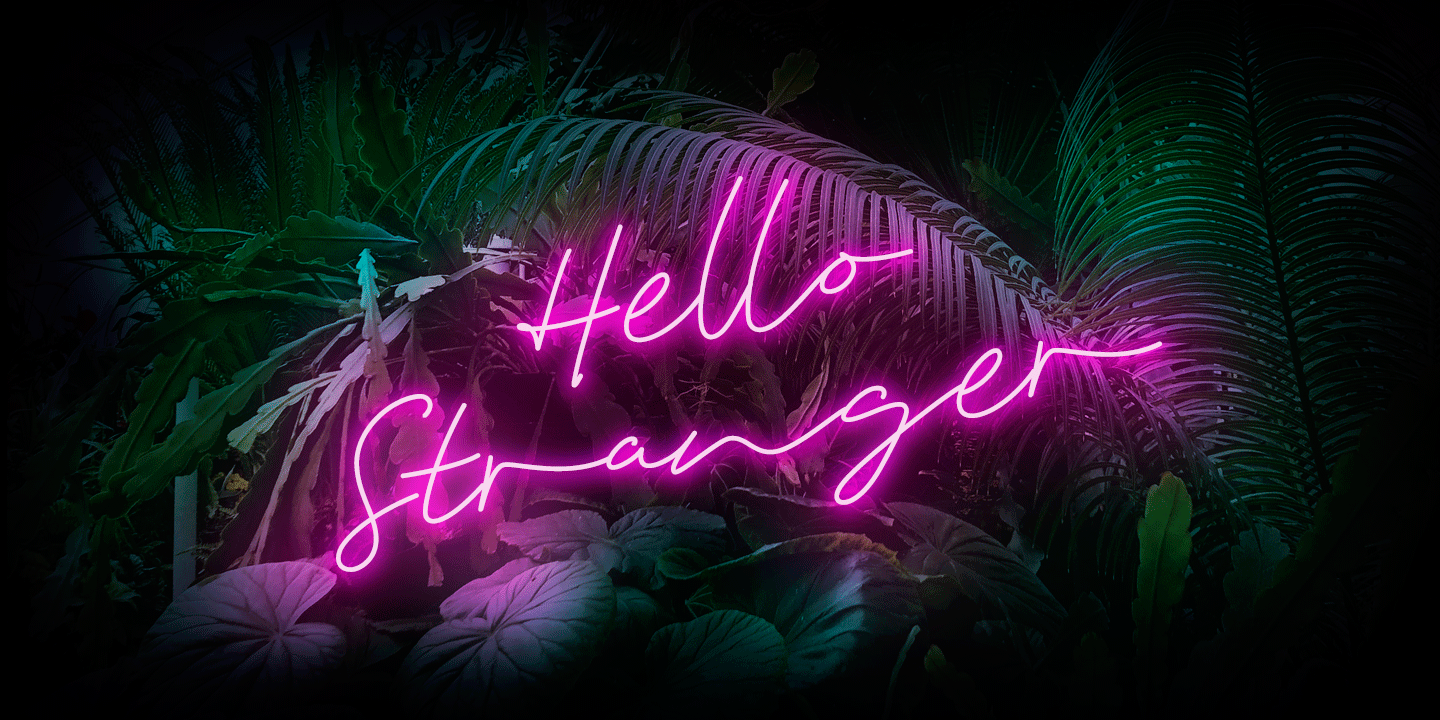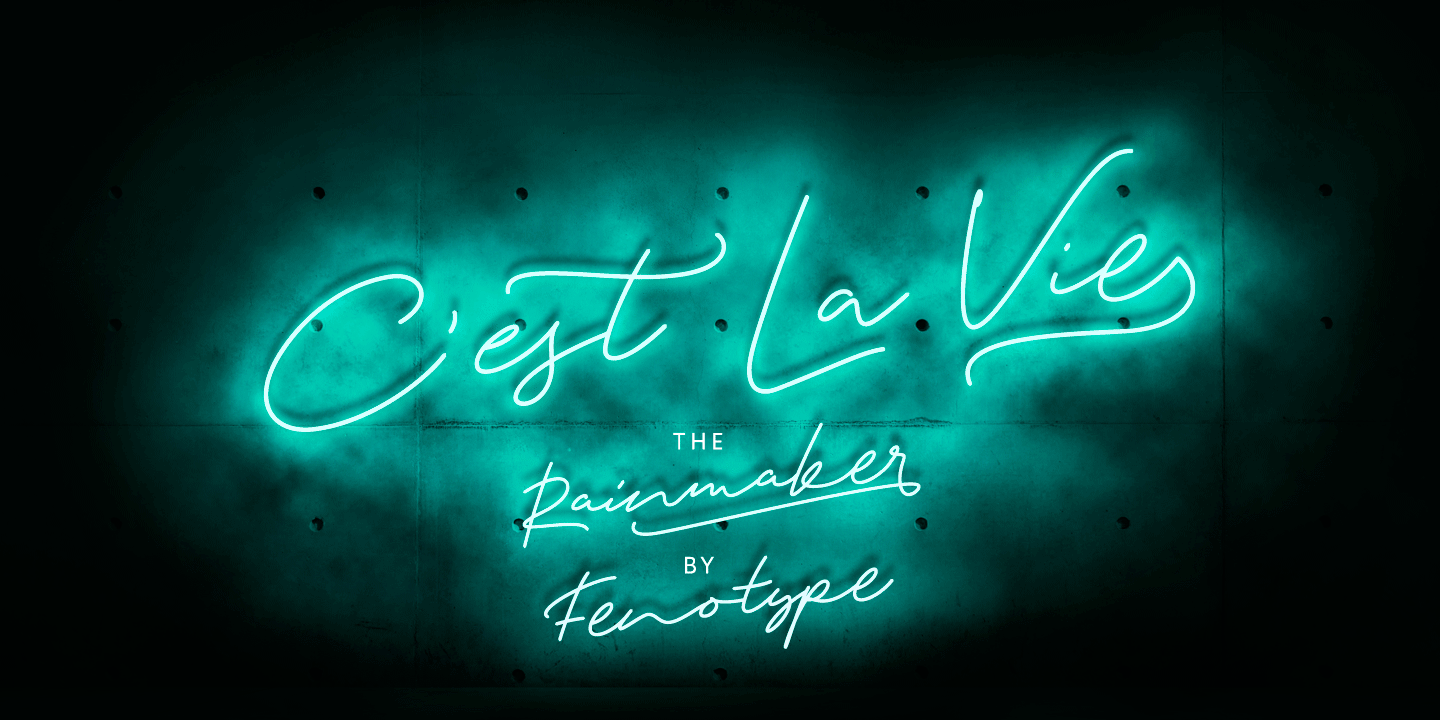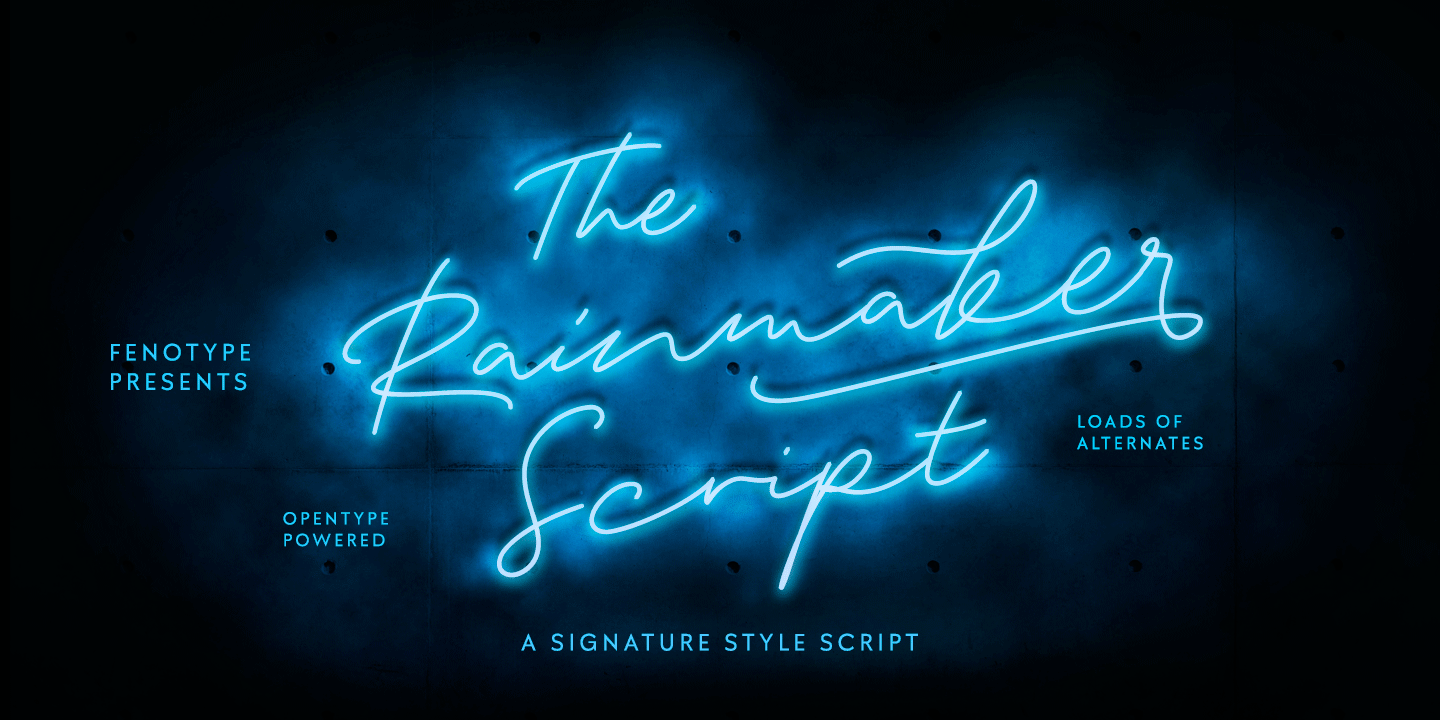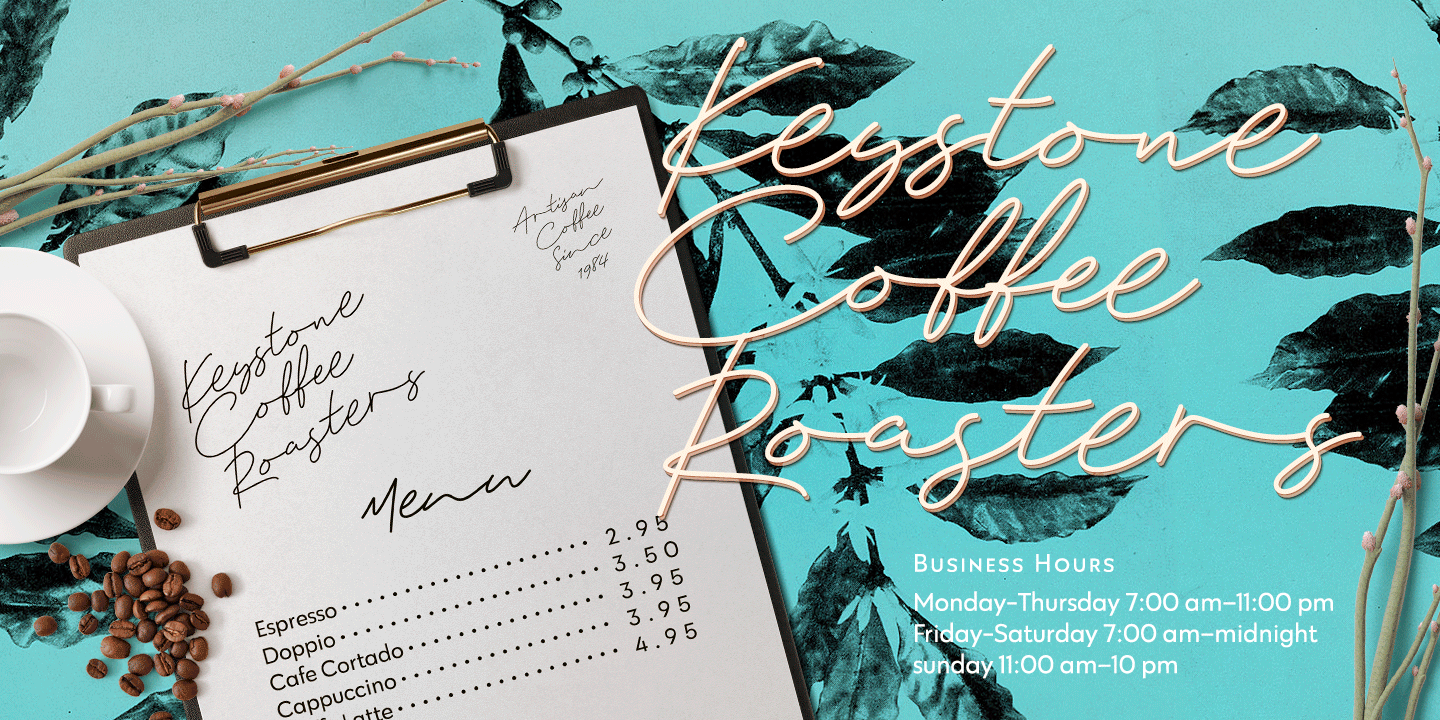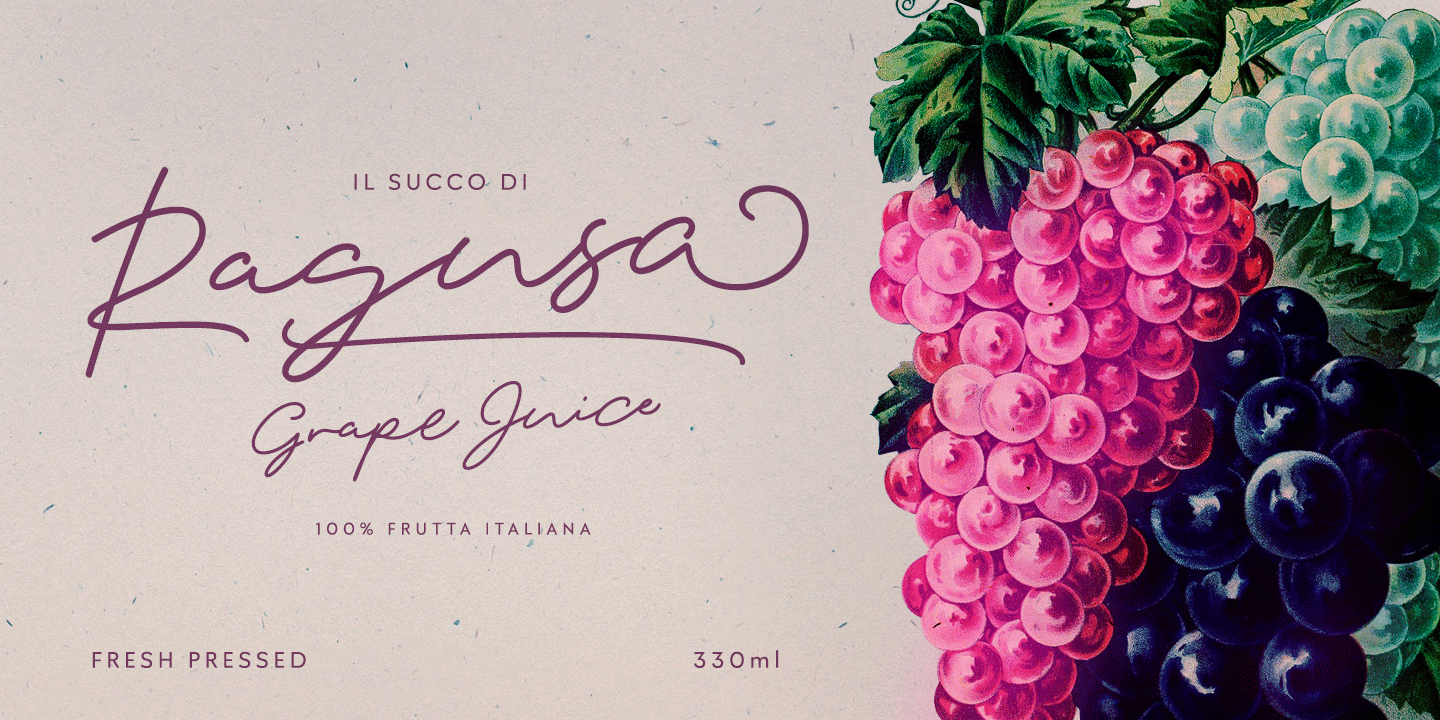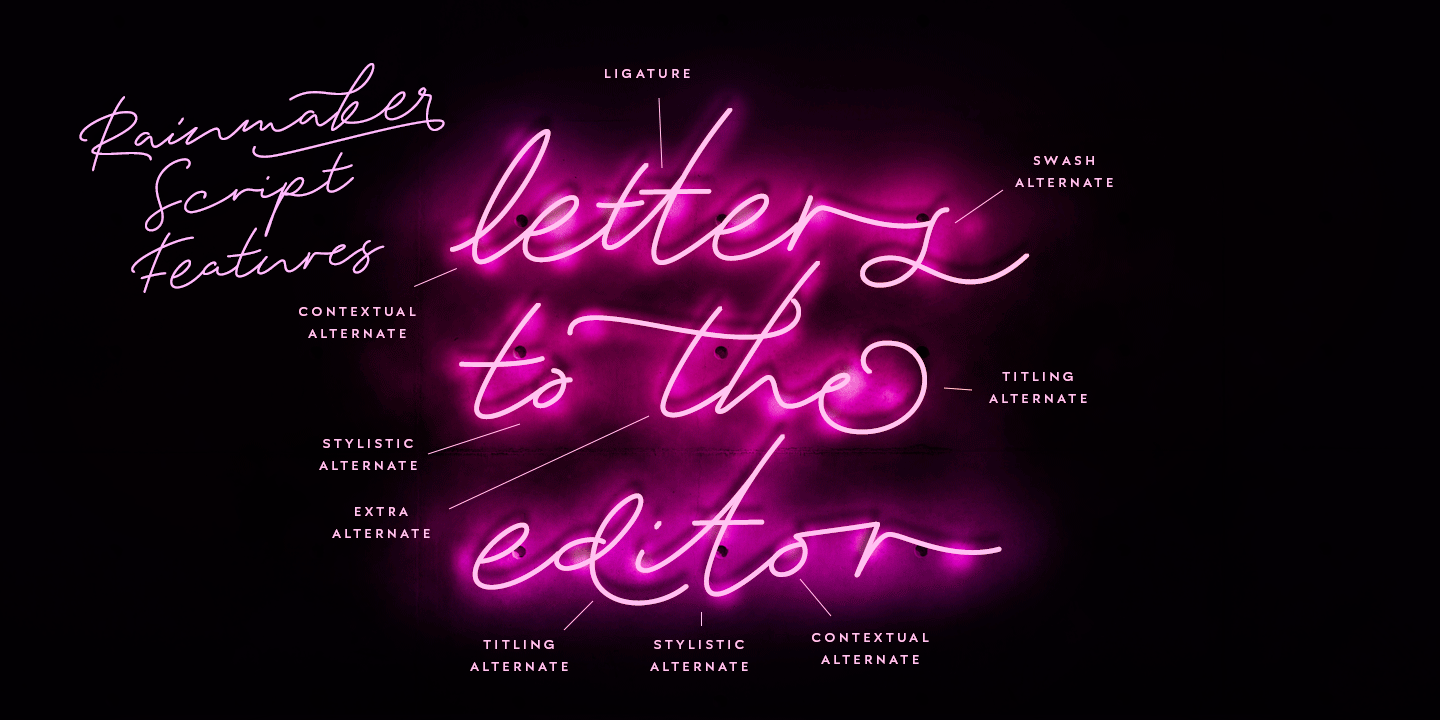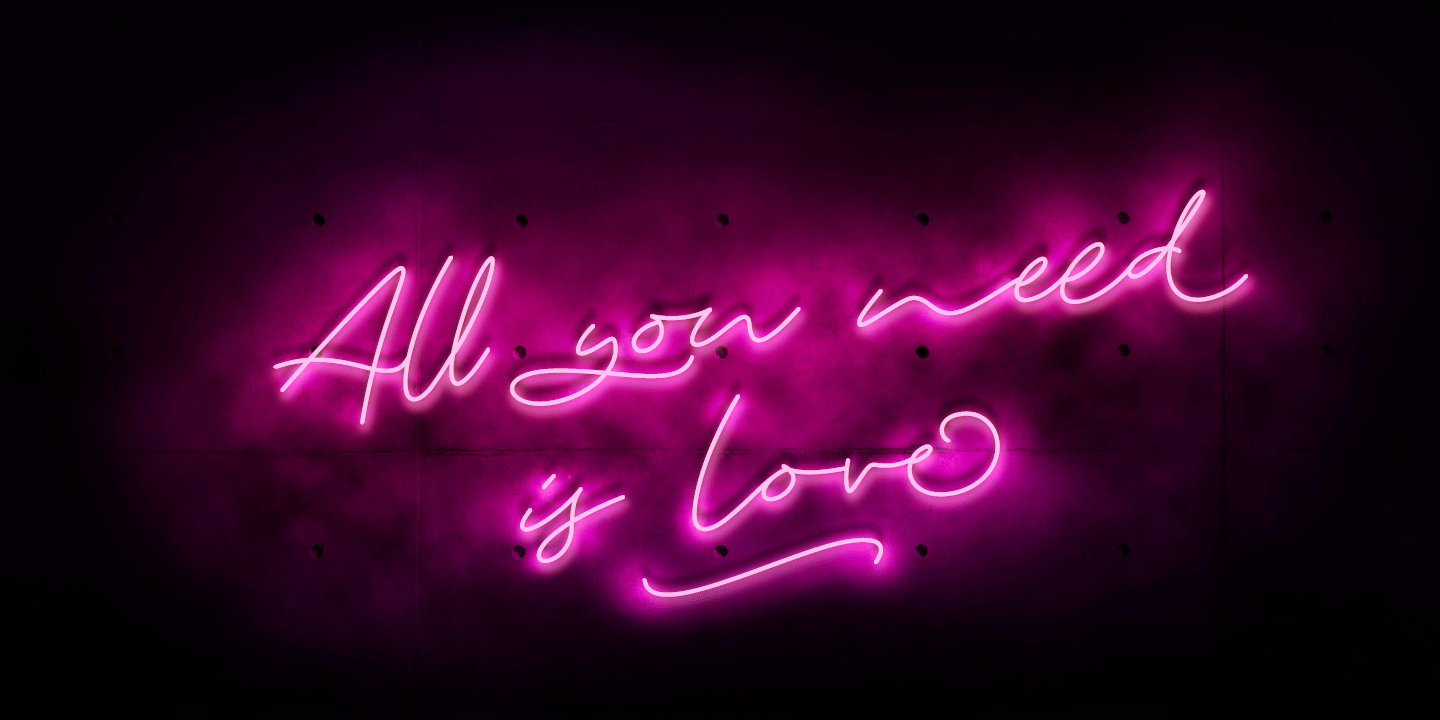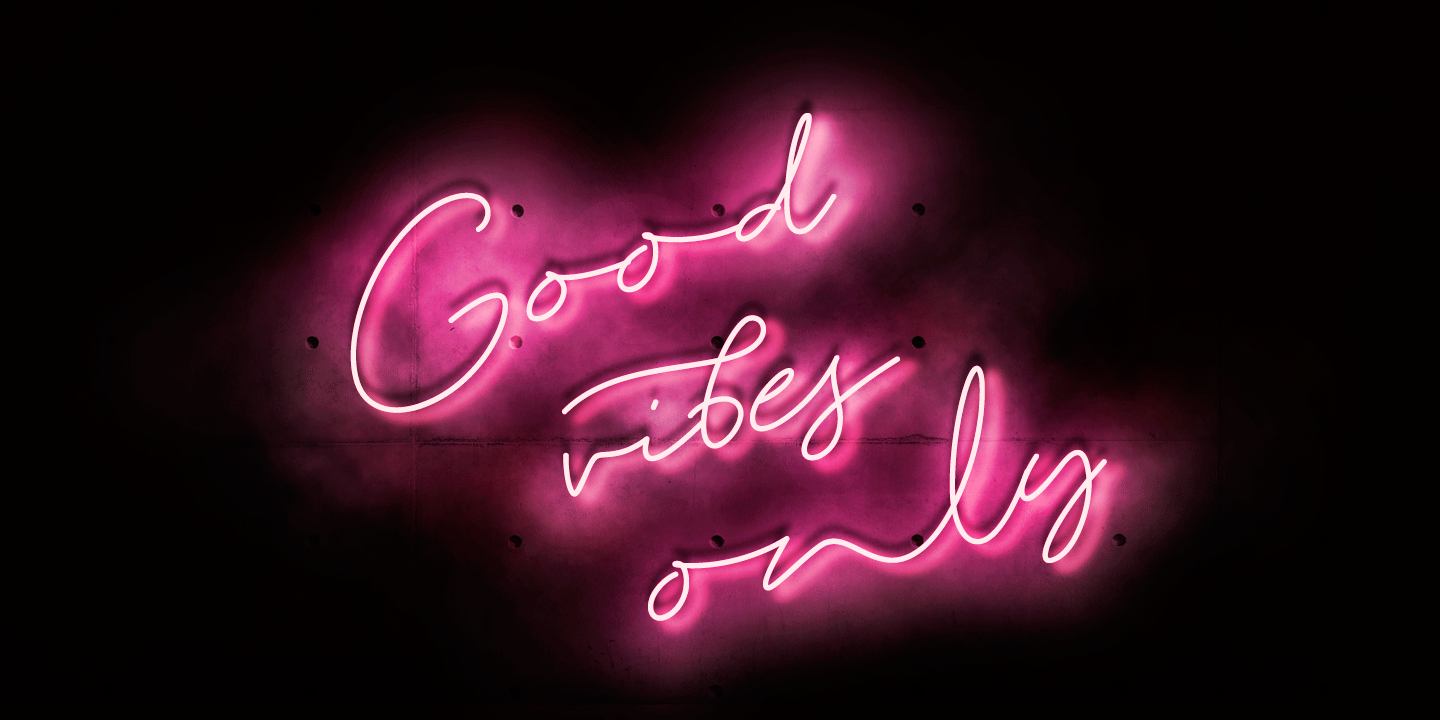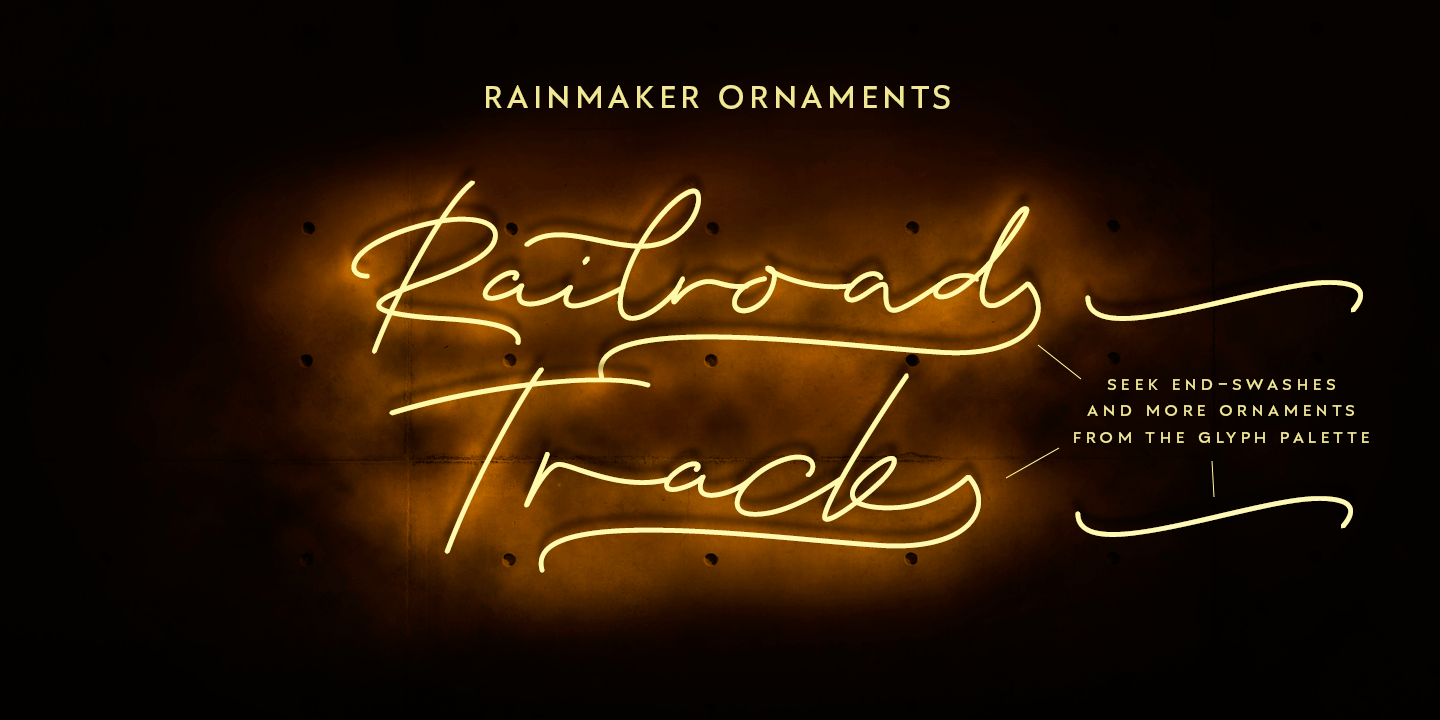
Rainmaker Script
Font Family by Fenotype
I started Rainmaker Script by hand sketching a huge amount of letters to find the right tone. After having enough I picked the characters that I liked and begun composing a font out of them. With this method I ended up with the Rainmaker Script - an elegant signature style connected script with natural variation in the rhythm.
Rainmaker Script is great for branding, headlines and packaging. It's equipped with (automatic) Contextual Alternates that keep the flow natural and variable. There's also Swash, Stylistic and Titling Alternates, and even more alternates can be found for some characters from the Glyph Palette. From the Glyph Palette you'll also find a handful of ending swooshes and ornamental strokes that can be combined with the font.